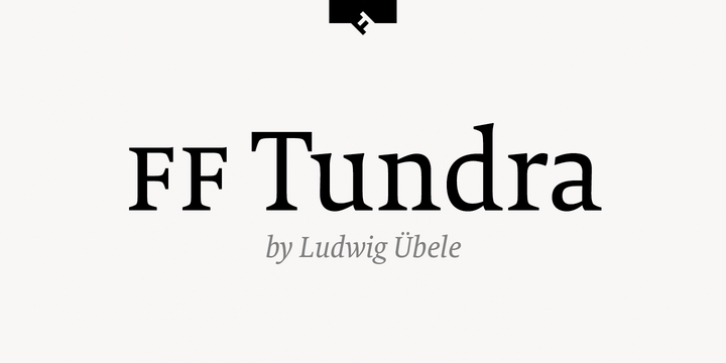
Publisher: FontFont
German type designer Ludwig Übele created this serif FontFont in 2011.
The family has 12 weights, ranging from Extra Light to Bold (including italics) and is ideally suited for advertising and packaging, book text, editorial and publishing, music and nightlife as well as small text.
FF Tundra provides advanced typographical support with features such as ligatures, small capitals, alternate characters, case-sensitive forms, fractions, and super- and subscript characters.
It comes with a complete range of figure set options – oldstyle and lining figures, each in tabular and proportional widths.
In 2011, FF Tundra received the TDC2 award. The typeface was also selected as one of Typographica’s favorite typefaces of 2011.